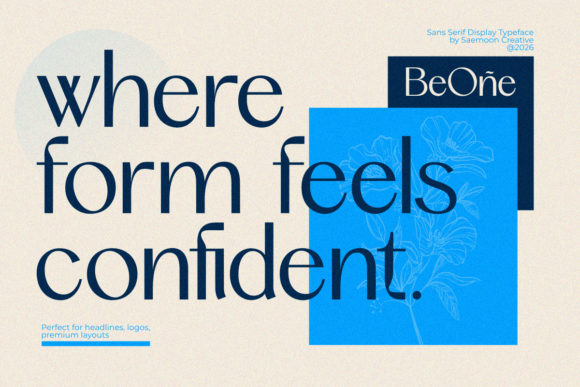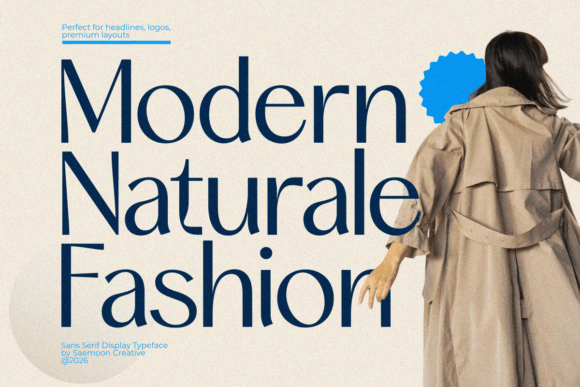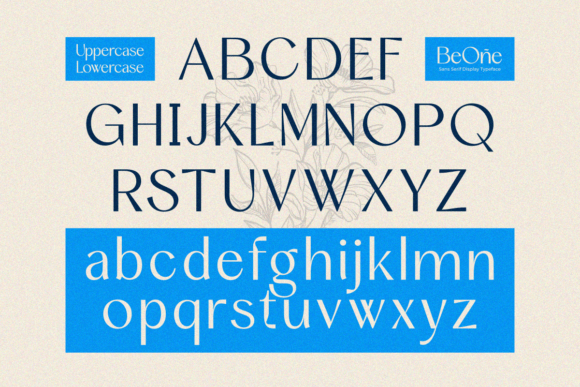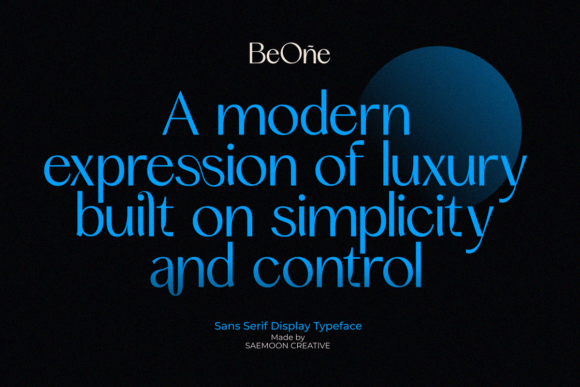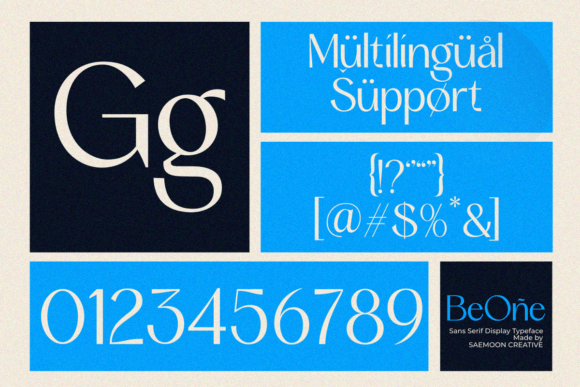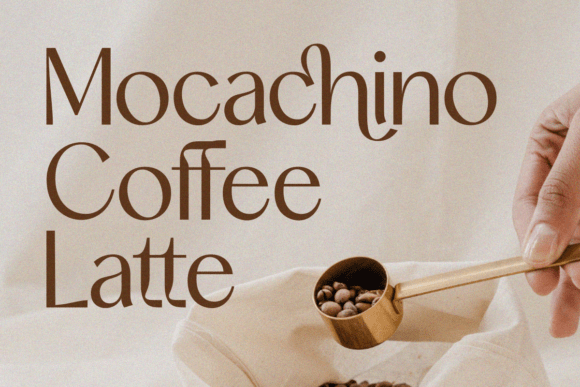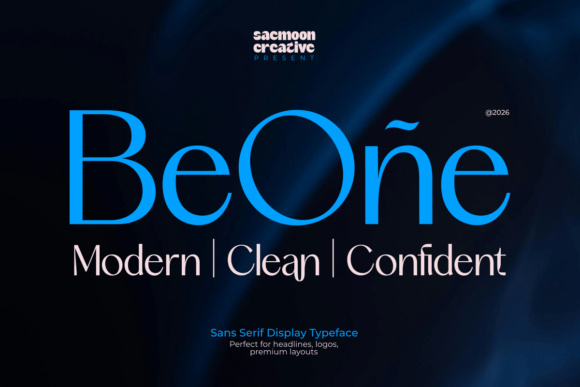
Designing with Confidence: The Power of Beone Sans Font
As a designer, there’s nothing quite like the thrill of creating something new and impactful. It’s that moment when a concept clicks, and the words start flowing – the blank page is filled with ideas, and your vision begins to take shape. For many designers, this moment is the spark that ignites a creative project. And what better way to fuel that spark than with the perfect font?
Enter Beone Sans Font, a modern sans-serif display typeface designed to make a strong visual impact. With its clean, confident, and contemporary character, Beone Sans Font is the perfect choice for modern branding and headline-driven designs. Whether you’re working on logos, editorial layouts, or social media content, Beone Sans Font delivers clarity, style, and modern appeal – making it a valuable addition to any designer’s toolkit.
Beone Sans Font Key Features
- Font Family: Beone Sans, a modern sans-serif font designed for digital use.
- Unique Characteristics: Beone Sans features a clean, geometric design with subtle rounded edges, making it perfect for modern digital interfaces and branding materials.
Beone Sans Font Review
Beone Sans is a modern sans-serif font that can be used for a wide range of applications. It’s clean and minimalist design makes it a great choice for digital products, logos, and body text.
- ✨ Clean and minimalist design, perfect for digital products and logos.
- ✨ Highly legible and clear, even at small font sizes.
- ✨ Great for use in headers, body text, and captions.
- ⚠️ Limited language support, may not be suitable for languages that require complex typography.
- ⚠️ May not be suitable for use in situations where a highly decorative or ornate font is required.
Overall, I think Beone Sans is a solid choice for designers who need a clean and modern sans-serif font. While it may not be suitable for every situation, it’s a great option for digital products and logos. With some limitations in mind, I would definitely consider using Beone Sans in my next project.
Tips for Getting the Most Out of Beone Sans Font
Beone Sans Font is a clean and modern sans-serif font that works well for a variety of applications. Here are some tips for getting the most out of it:
- Use it for headings and titles to add a touch of sophistication
- Pair it with a serif font for a unique contrast
- Experiment with different font sizes and styles to add visual interest
Beone Sans Font is versatile and can be used in a variety of contexts, including:
- Graphic design (posters, flyers, brochures,
Alternatives to Beone Sans Font
Beone Sans Font is a popular sans-serif font used in various design projects. However, designers may want to explore alternative options to suit their specific needs. Here are a few alternatives: